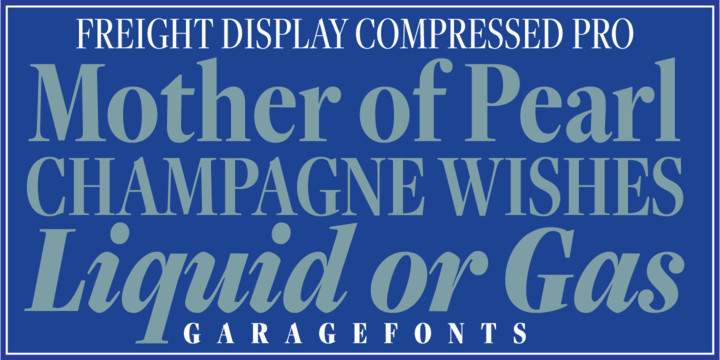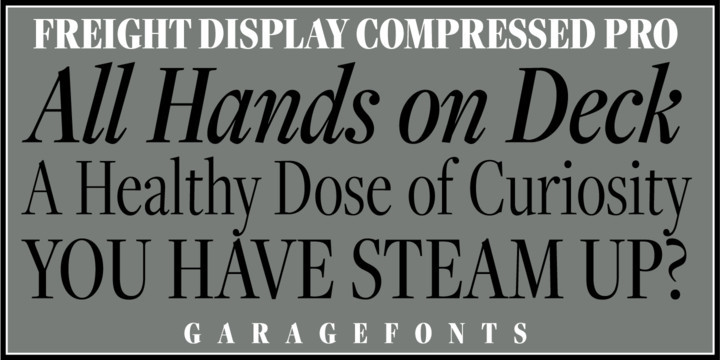
Freight Font
Freight Display Compressed Pro is a workhorse for headlines, subheads and running heads. The warmer proportions and large lower case give balance for an easy read. Beautiful headlines are back in style with Freight Display.